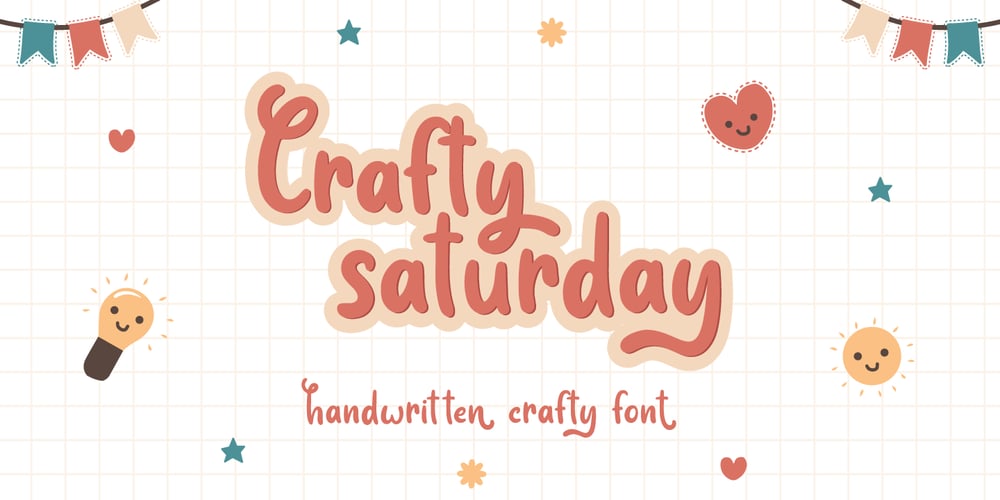
Crafty Saturday Font Family was designed by Fadli Ramadhan Iskandar and published by Attype Studio. Crafty Saturday contains 1 styles and family package options. Crafty Saturday is a Handwritten crafty font with stylistic set and alternates. Fall in love with its incredibly versatile style and use it to create spectacular designs!Crafty Saturday is perfect for branding, logo, invitation, quotes, apparel design, product packaging, merchandise, game titles, cute style design, Book/Cover Title and more.What’s Included :- Ending Swash- Multilingual Support